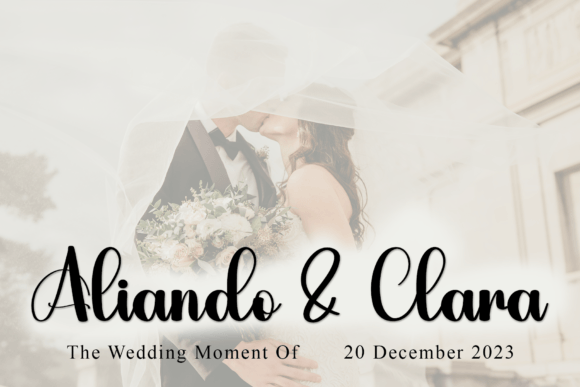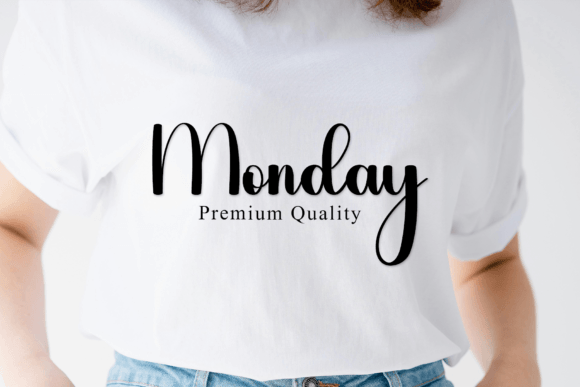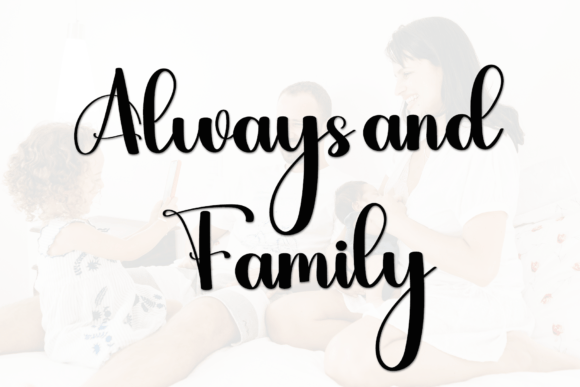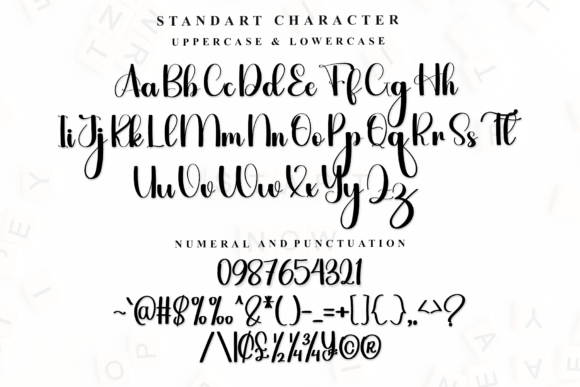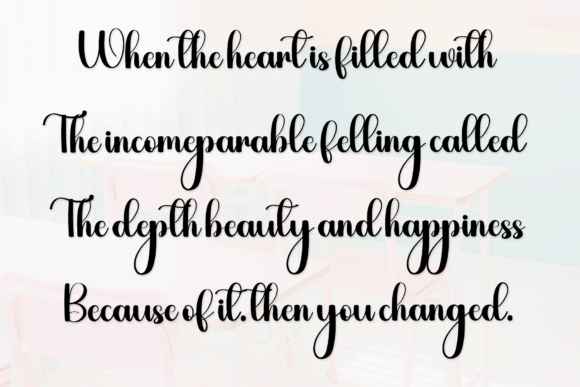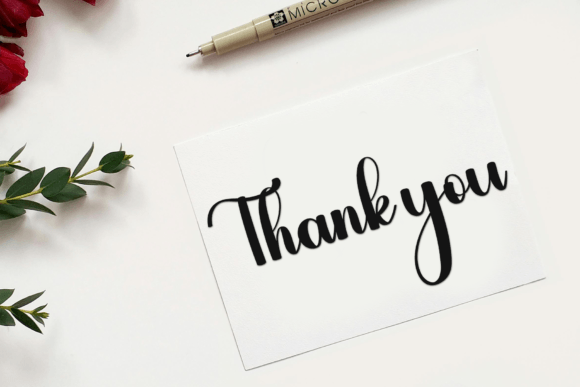
Introduction to Smile School Font
Remember that moment when you stumbled upon the perfect font to elevate your design project? For many of us, it’s a moment of pure excitement and relief. And that’s exactly what we’re about to share with you – a delightful discovery that will make your creative projects shine: the Smile School Font.
As a valuable design resource, the Smile School Font is perfect for adding a fun, personal touch to your designs. Its playful, handwritten style resembles a cheerful pen stroke, making it an ideal choice for those looking to inject some whimsy into their work. With its free download availability, you can easily incorporate this high-quality font into your next creative project, whether it’s a digital illustration, a social media graphic, or a promotional poster.
Whether you’re working on a project with a transparent background or need a font that stands out from the crowd, the Smile School Font is an excellent choice. Its versatility and charm make it a must-have for designers looking to add a unique touch to their work.
Key Features of Smile School Font
- Unique, playful, and kid-friendly font style perfect for educational and children’s content.
- Smile School Font comes in 4 different font weights, offering flexibility for diverse design applications.
- Perfect for Smile School, nursery, kindergarten, and elementary school projects, as well as other educational and creative endeavors.
Honest Review: Smile School Font
As a designer, I’m always on the lookout for high-quality design resources to elevate my creative projects. The Smile School Font caught my attention, and I decided to give it a try. Overall, I’m impressed with what I found.
- The font has a modern and playful feel, making it perfect for kids’ educational materials or creative projects.
- The font may not be suitable for professional or formal designs due to its playful nature.
- The font family is relatively small, with only a few weights and styles to choose from.
Overall, I’m pleased with the Smile School Font. While it may not be perfect for every design project, it’s a great addition to any design resource library. Its modern feel and transparent background make it easy to use, and the free download option is a huge bonus. I’d definitely recommend it for creative projects, especially those aimed at a younger audience.
Getting the Most Out of Smile School Font
The Smile School Font is ideal for use in various creative projects, such as:
- Print and digital media
- Wedding invitations and party decorations